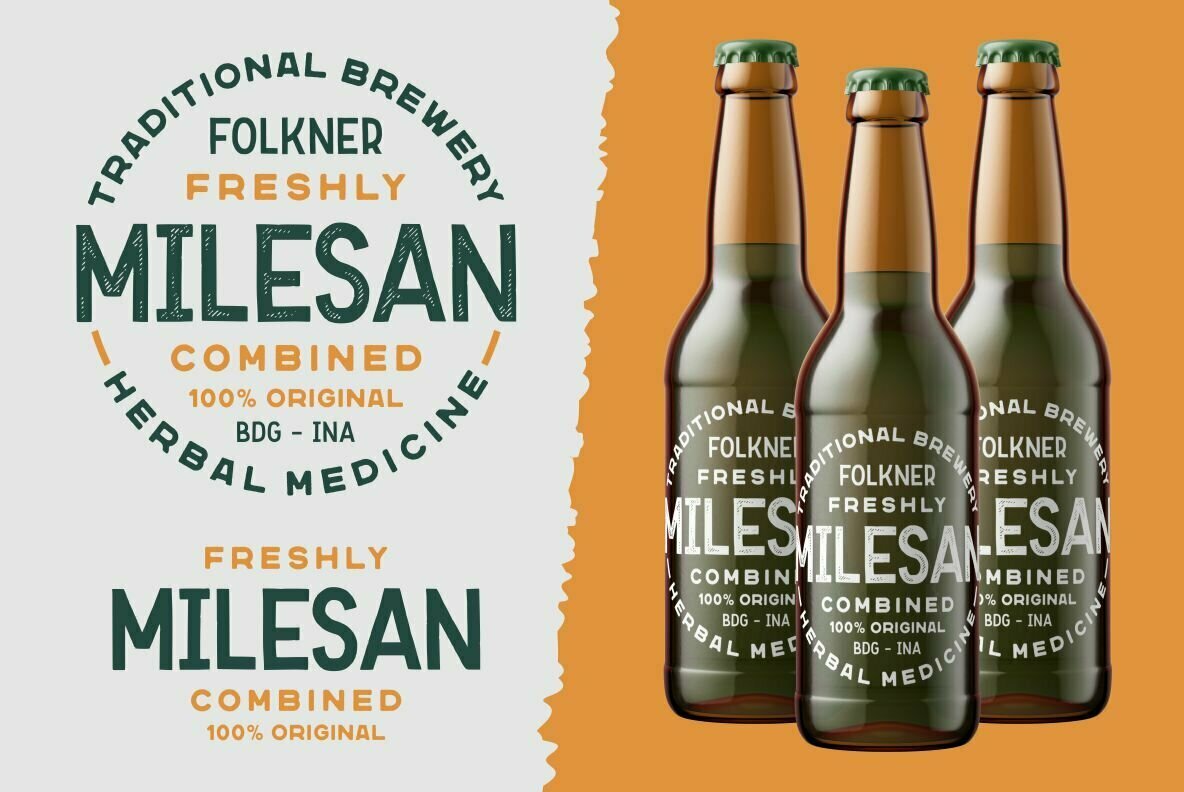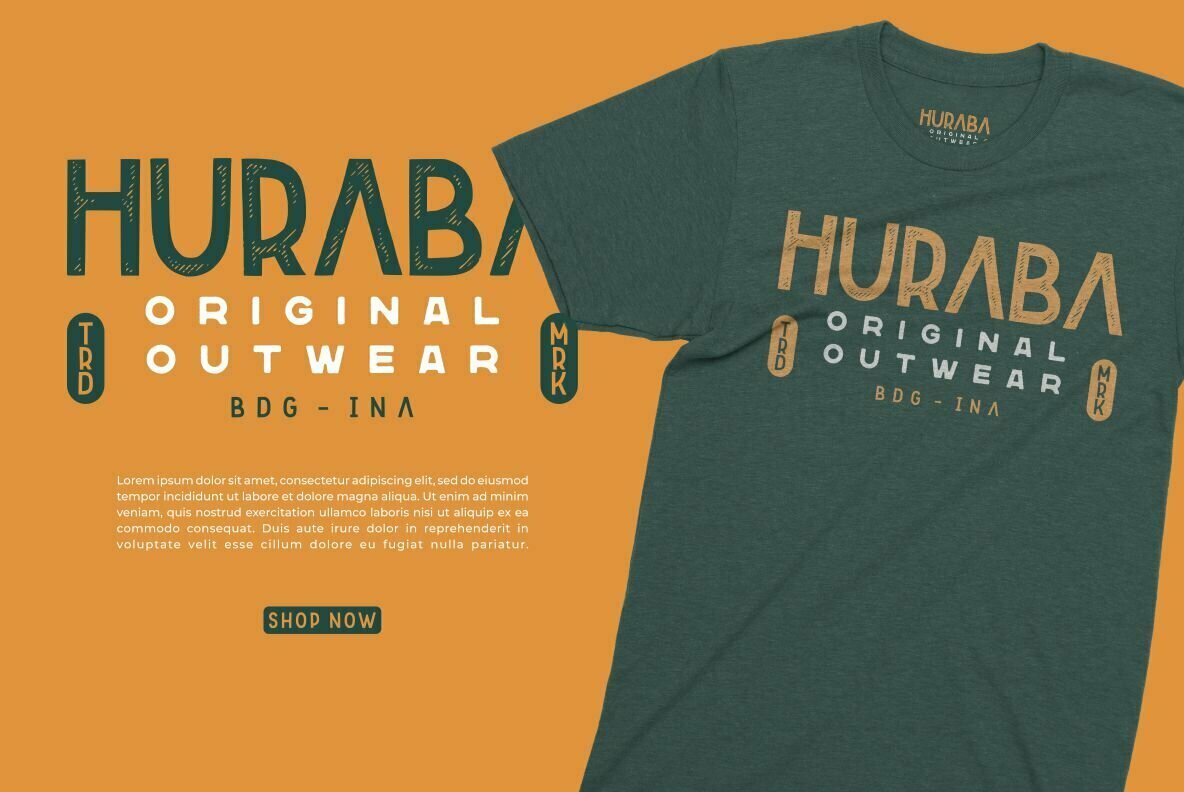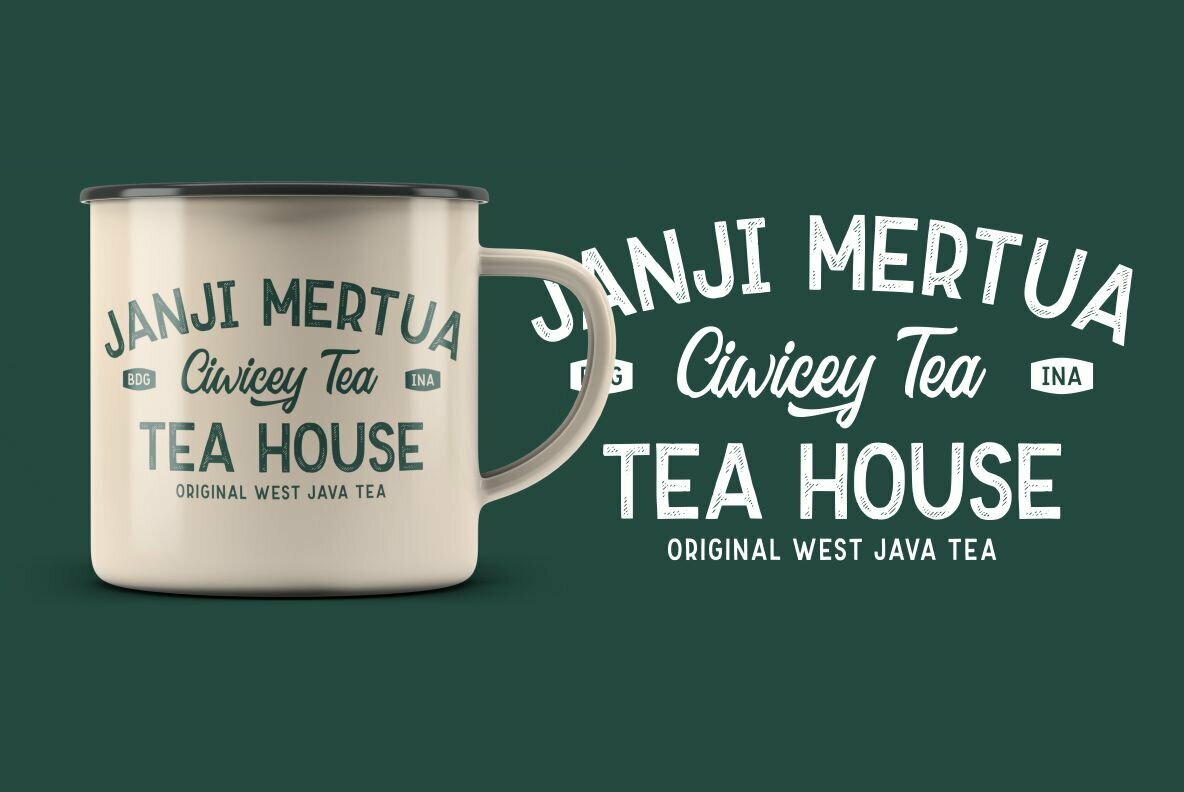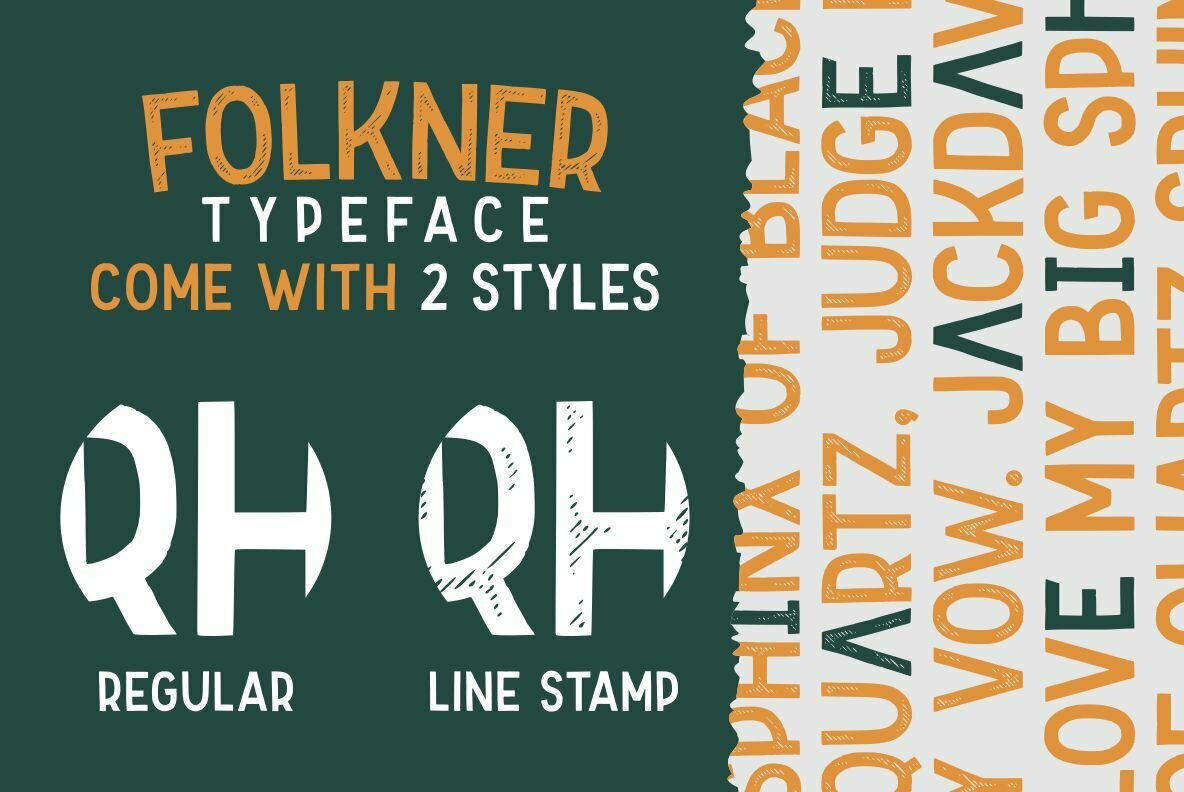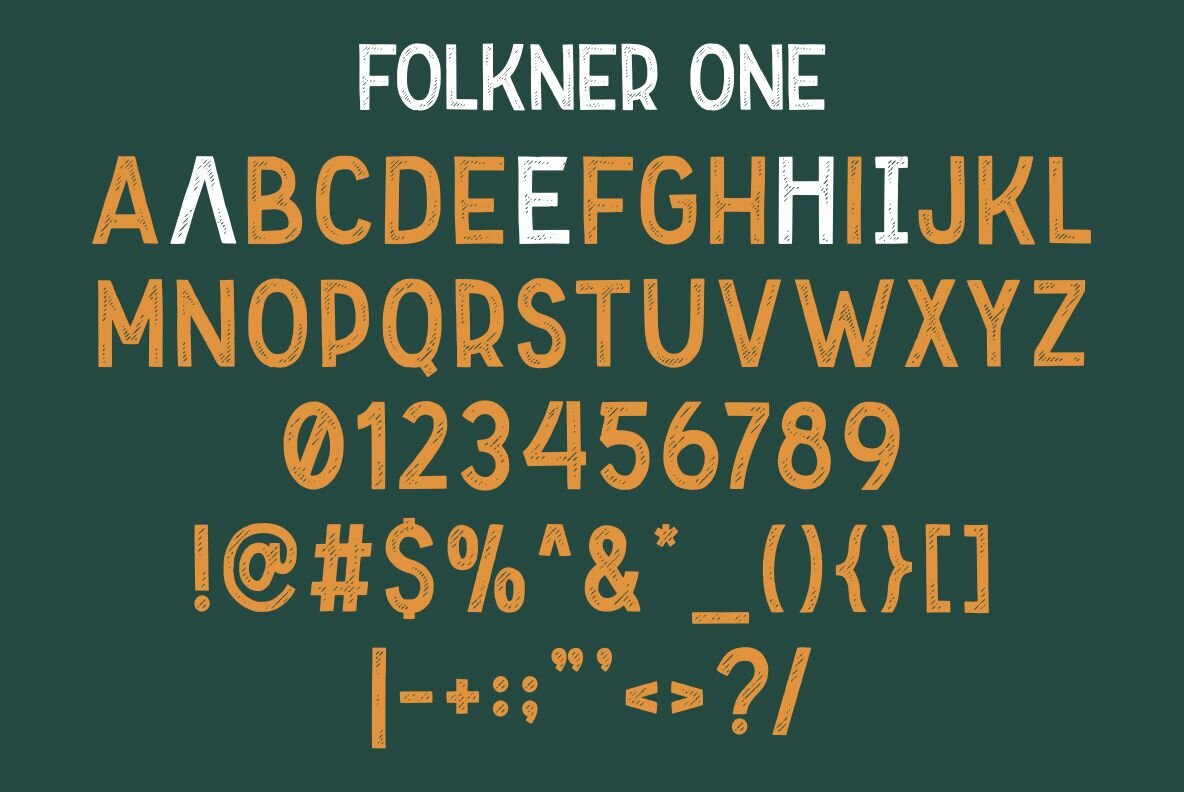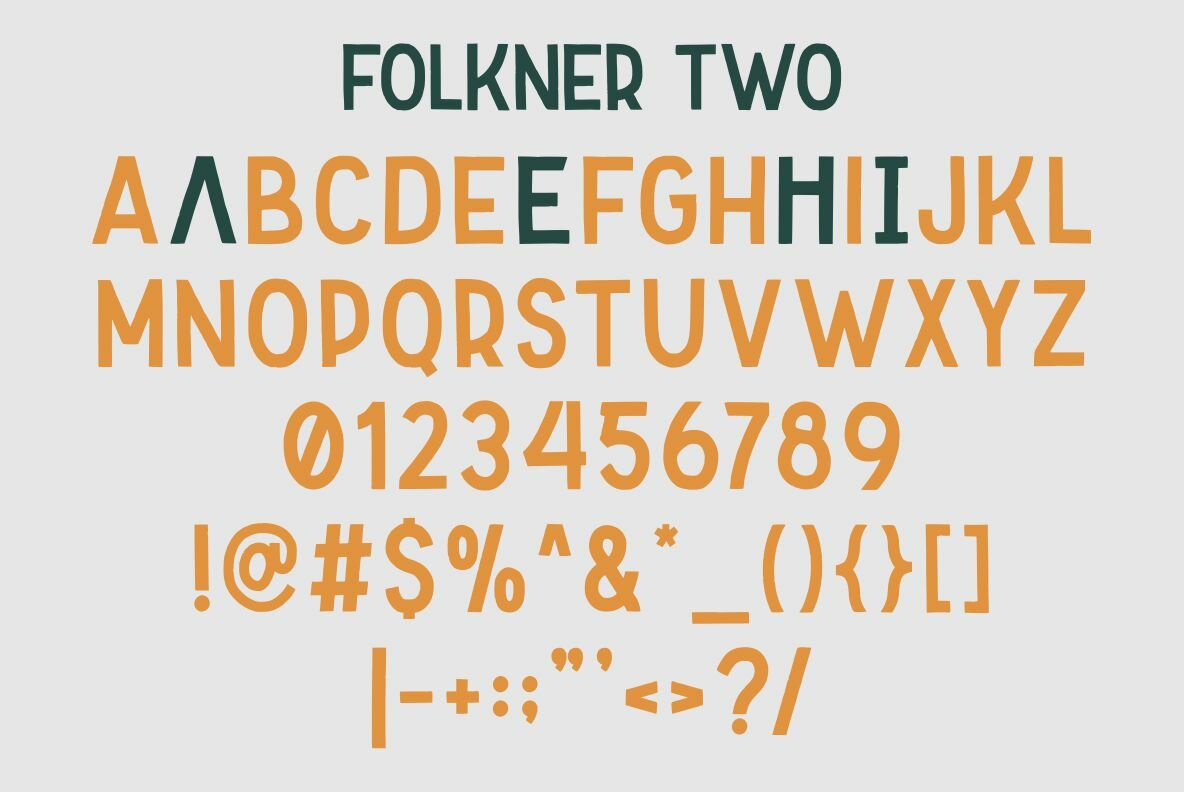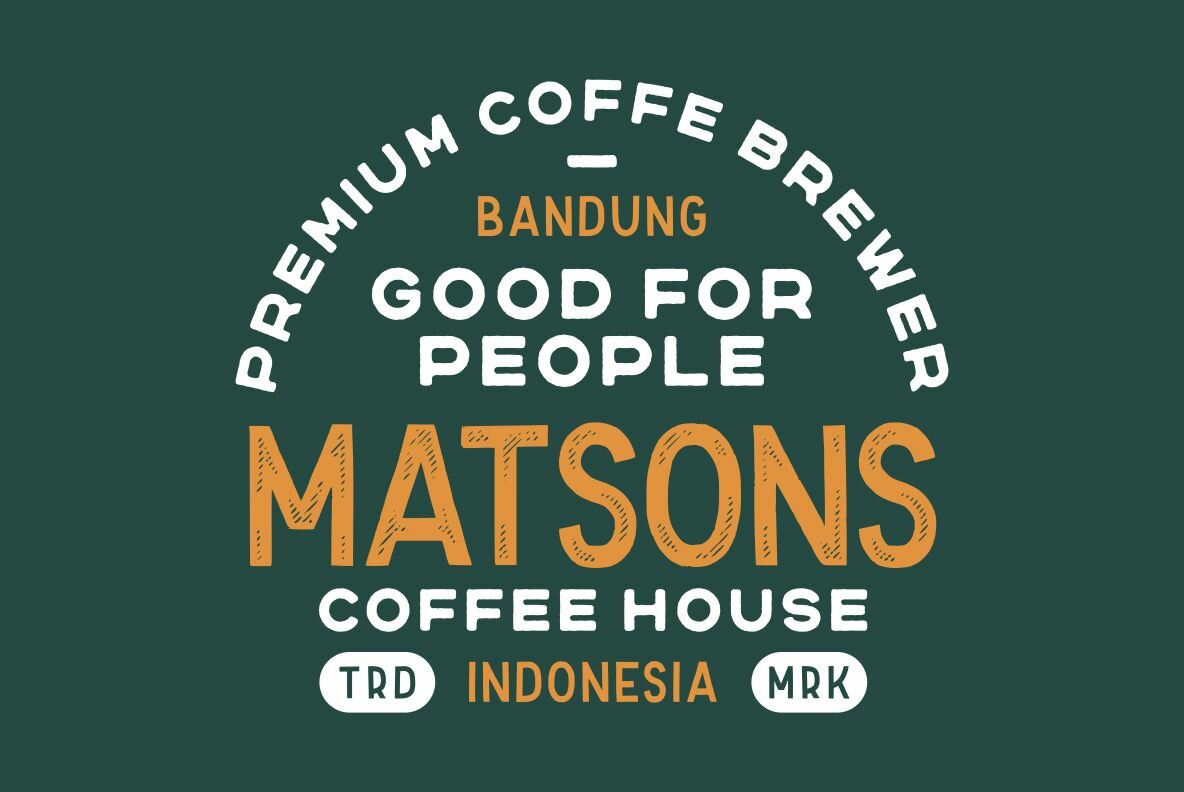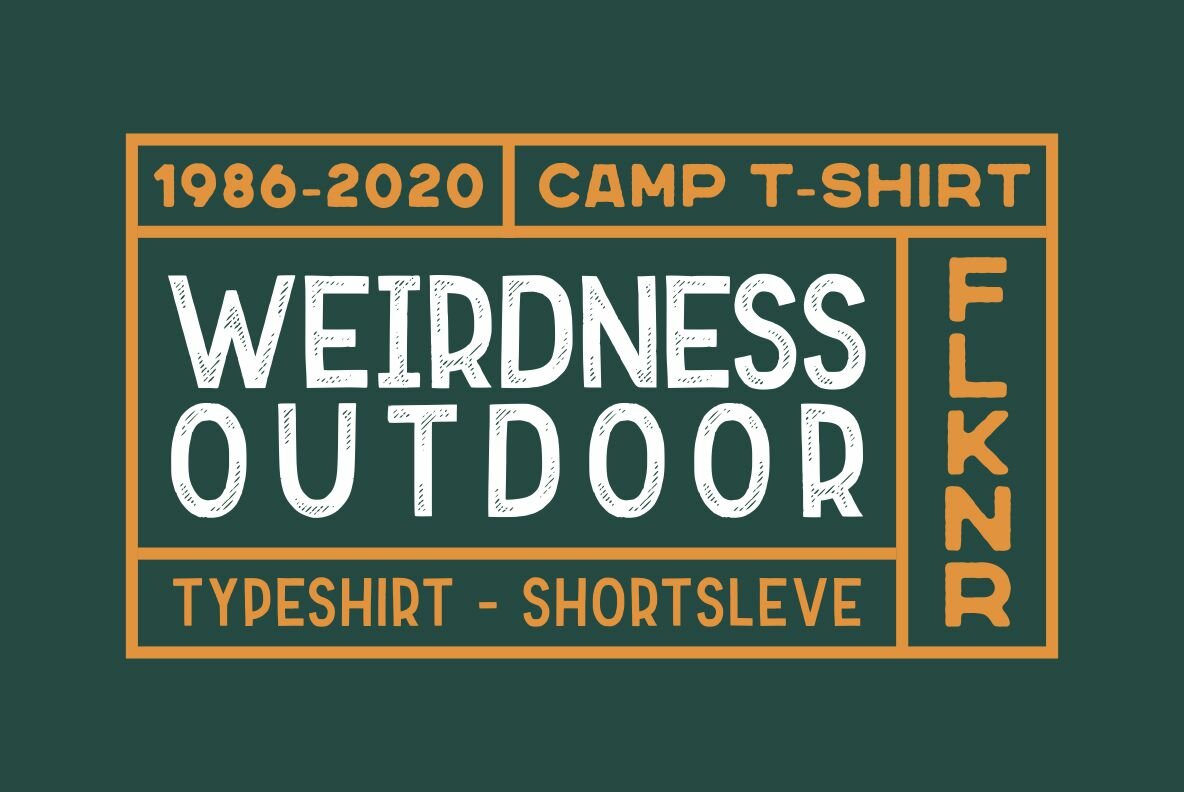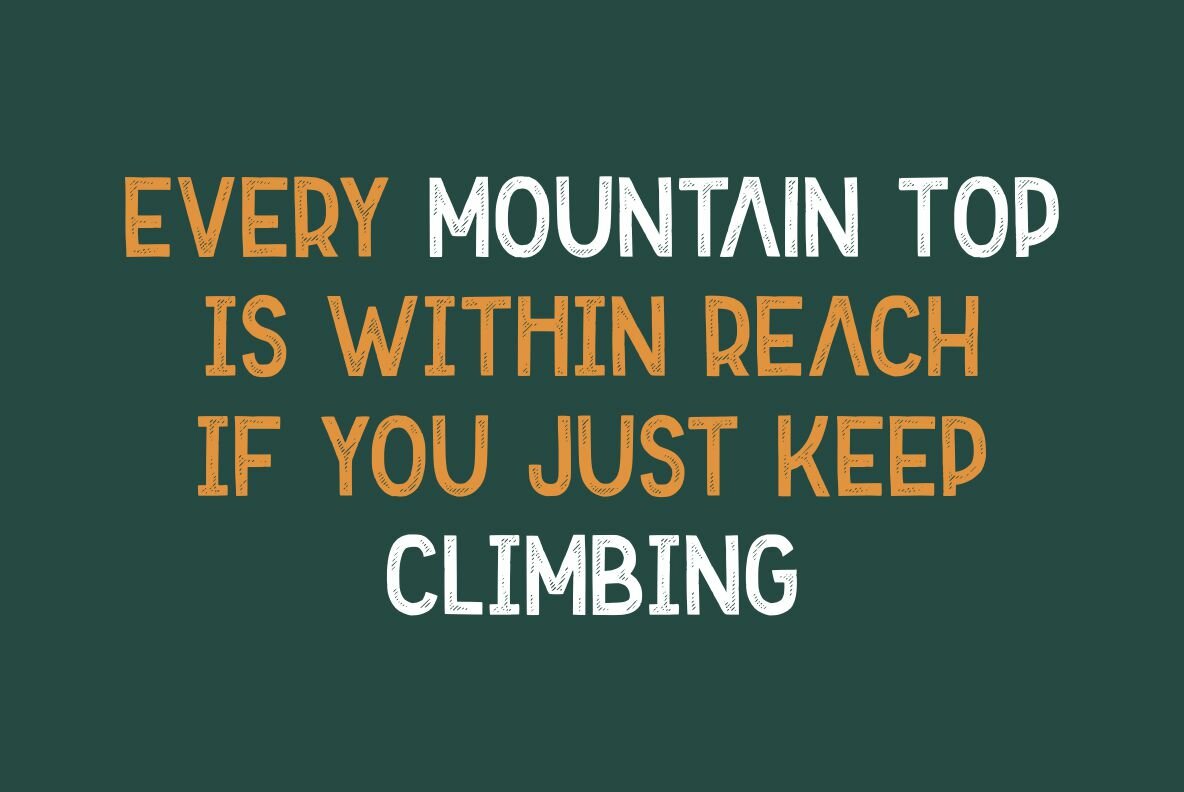
Folkner Font
Folkner One
Folkner Two
Delve into the nostalgic charm of Folkner, a typeface thoughtfully crafted by Risman Ginarwan. Rooted in a rich, vintage aesthetic, Folkner offers a classic vibe with its handmade influence and subtle, messy line stamps in its Folkner Two variation, evocative of a bygone era. This typeface is an ideal choice for those seeking a vintage flair for their projects, providing timeless elegance and character. Perfectly suited for an array of graphic design applications, Folkner complements branding materials, t-shirts, prints, business cards, logos, posters, photography, and more. This versatility makes it a valuable addition to any designer's toolkit.Folkner: A Vintage Typeface with Classic Appeal